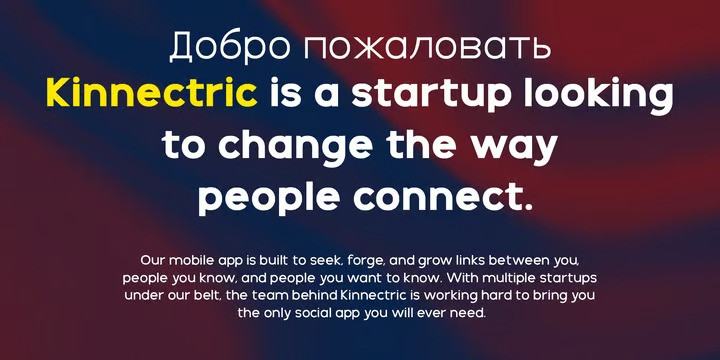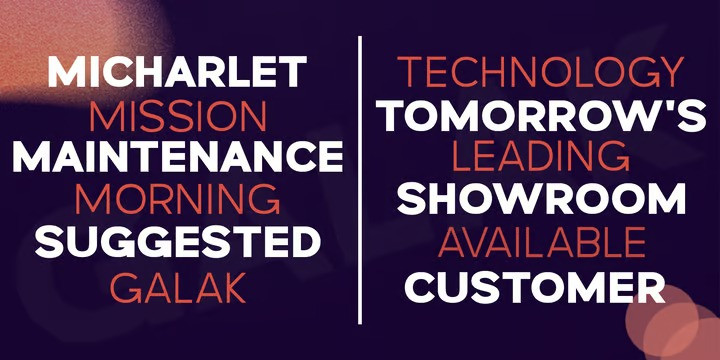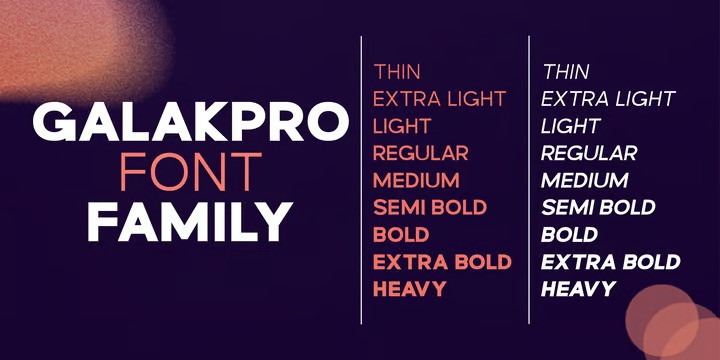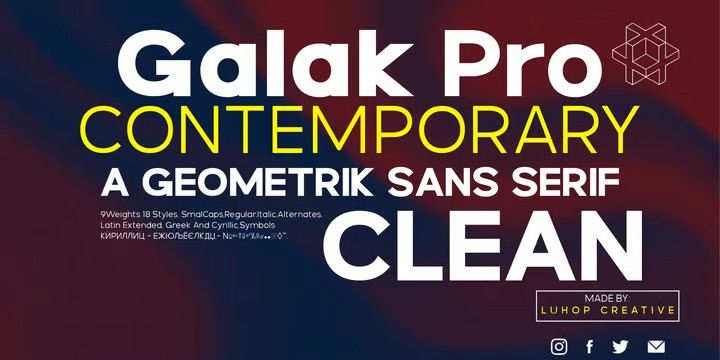
Galak Pro Font
Galak Pro Sans Serif Font is a geometric grotesque sans serif font family of 18 fonts. It supports Extended Latin, Cyrillic and Greek. This blend produce a typeface of modern, clean and contemporary appearance that has implicit on its core a classic vibe, nourishing the text with a timeless elegance.In use, the form and function balance of its design allow it freely travel through a diverse range of fields and possibilities like short text settings, brands, headlines or signage systems with grace and naturality.